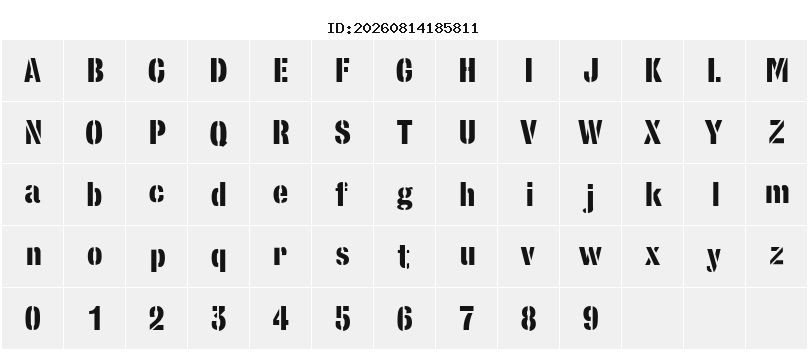
StencilSans Preview
• Font Name: StencilSans
• Font Style: Gras
• Font ID: Weatherly Systems, Inc. StencilSans Bold
• Full Font Name: StencilSans Gras
• Version: Publisher's Paradise -- Media Graphics International Inc.
• PostScript Name: StencilSansBold
• Character Count: 220
About StencilSans.ttf
StencilSans.ttf is a modern, elegant sans-serif font designed for ultimate readability and visual harmony. Perfect for branding, headlines, web design, and print materials.